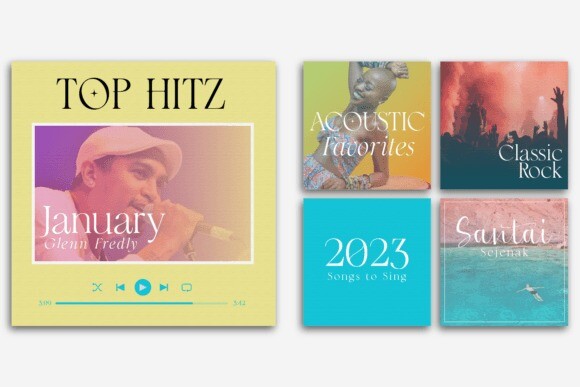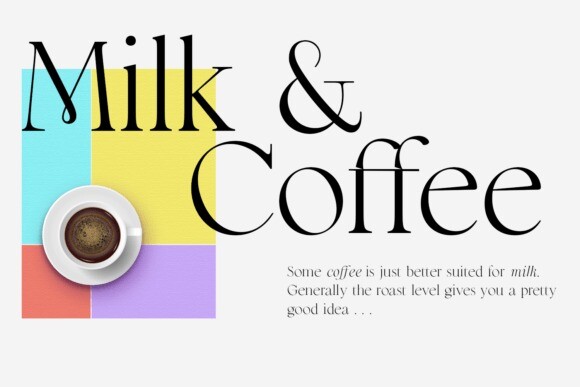
Melody Symphony Font
Add a personal touch to your design work with the exquisite and appealing handwritten font – Melody Symphony. This font features a unique, hand-drawn style that gives your designs a warm, personal feel. Perfect for use in invitations, logos, and any project that needs a touch of charm. The font’s elegant curves and natural flow make it both eye-catching and readable, making it a versatile choice for any design project.